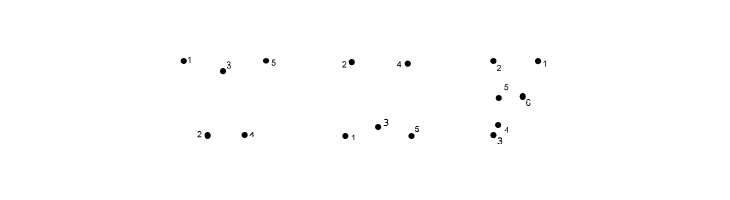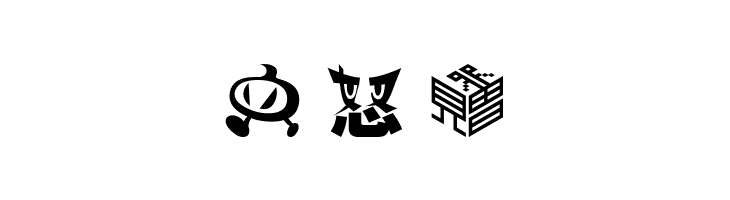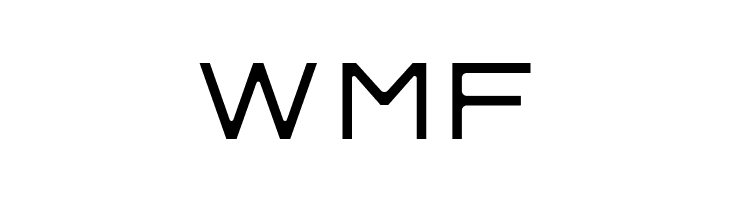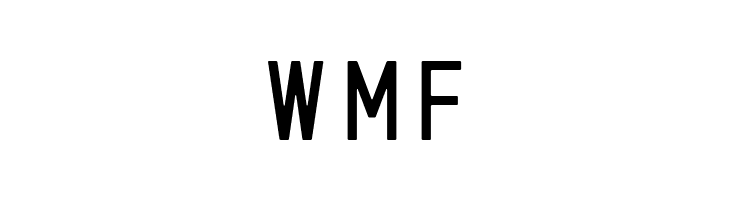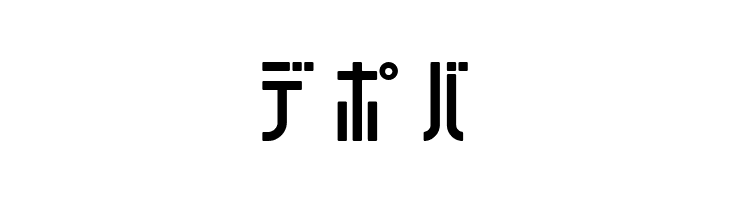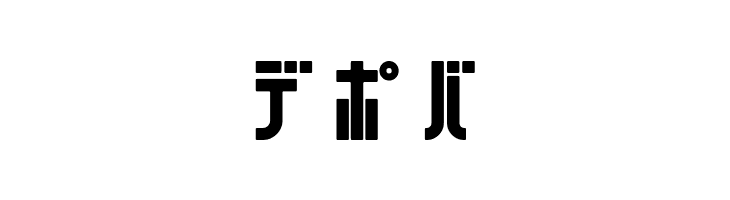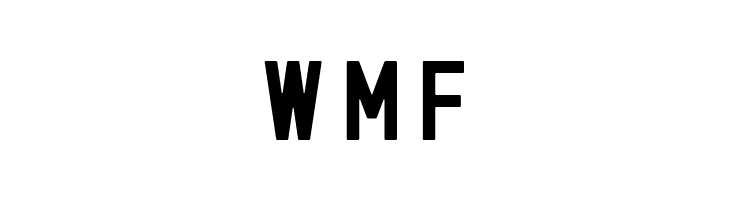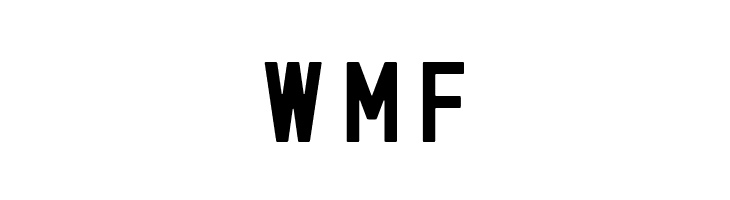
A modern, geometric font with sharp angles and clean lines.
( Jane Bond )
A whimsical, hand-drawn font with playful loops and swirls.
( Jane Bond )
A casual, handwritten font with a playful yet structured appearance.
A pixelated, digital font with a retro, technological style.
A creative and eclectic display typeface with diverse, artistic character designs.
( Bjorgvin Stop - www.bjrogvinstop.com )
A playful, handwritten font with a casual and energetic style.
A decorative and eclectic font with unique, artistic characters and symbols.
A flowing, cursive script font with elegant loops and swashes.
A bold, pixelated font with a retro, 8-bit style.
A bold, angular font with high contrast and geometric shapes, perfect for impactful designs.
A bold, geometric font with a strong, modern presence.
A bold, modern font with a geometric structure and uniform thickness.
A bold, geometric font with a modern and structured appearance.
A bold, geometric font with a modern and structured design.
A modern, clean sans-serif font with uniform strokes and a slightly condensed form.
A modern, clean sans-serif font with uniform strokes and slightly condensed proportions.
A modern, geometric sans-serif font with a condensed width and uniform stroke.
A futuristic, bold font with rounded, geometric letterforms and low contrast.
A modern, geometric font with a futuristic aesthetic and uniform stroke width.
( Fonts by Christopher Hansen )
A bold, distressed font with a grunge aesthetic and angular, geometric characters.
A bold, decorative font with a vintage, engraved appearance and shadow effect.
A sketch-like, hand-drawn font with a playful and artistic style.
( Filip Zajac - www.zajac.ideoci.eu )
A modern serif font with balanced proportions and clear readability.